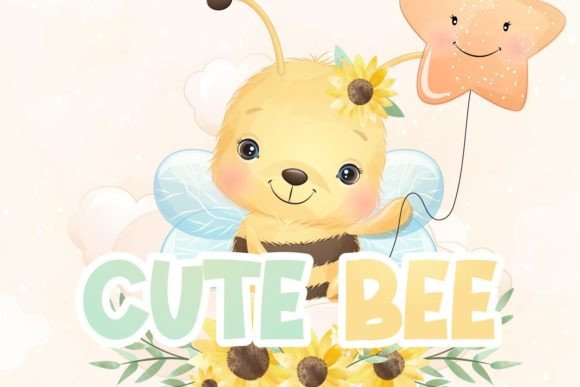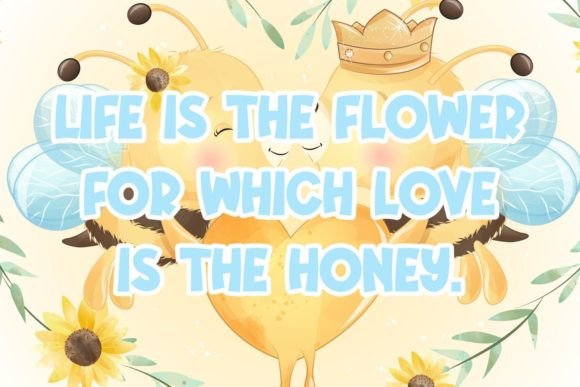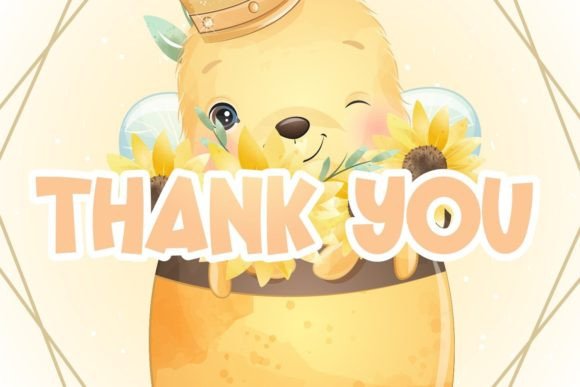
Introduction to Retro Bee Font
Do you remember that moment when you stumbled upon the perfect font for your creative project, and everything just fell into place? It’s a feeling that’s hard to describe, but it’s like the entire design just came alive. For designers, finding the right font can be a game-changer. And if you’re looking for a font that’s not only adorable but also versatile, you’re in luck because we’re about to introduce you to the Retro Bee Font.
This charming display font is a treasure trove of design possibilities, whether you’re working on a craft, digital design, presentation, or even a greeting card. With its friendly and retro vibe, the Retro Bee Font has the potential to become your go-to design resource for any occasion. And the best part? It’s available for a free download, so you can experiment with it without breaking the bank.
What sets the Retro Bee Font apart is its high-quality design, which allows for seamless use on any background – even transparent ones. Its unique style and versatility make it an excellent addition to any designer’s toolkit, and we can’t wait to share its awesomeness with you!
Key Features of Retro Bee Font
- High-quality, vector-based font design for a seamless and scalable experience.
- Unique, hand-drawn style with a nostalgic touch, reminiscent of classic illustrations and typography from the past.
- Perfect for designers seeking a distinctive and eye-catching design element for their creative project, such as a logo, poster, or packaging design.
Honest Review: Retro Bee Font
I recently stumbled upon the Retro Bee Font, and I’m excited to share my thoughts on this design resource. Overall, I found it to be a great addition to any creative project.
Here’s what works well:
- ✨ The Retro Bee Font is incredibly versatile, making it suitable for a wide range of designs, from posters to digital graphics.
- ✨ The high-quality design ensures that the font looks great on any background, including transparent backgrounds.
- ⚠️ The font is limited to a single style, which might not be suitable for projects that require multiple font styles.
- ⚠️ The font doesn’t include any ligatures, which might affect the overall appearance of certain words.
Overall, I’m impressed with the Retro Bee Font. While it may have some limitations, its high-quality design and versatility make it a great addition to any design toolbox. I’d definitely recommend it for any creative project.
Retro Bee Font
Designing with Retro Bee Font
The Retro Bee Font is a unique design resource that can add a touch of nostalgia and playfulness to your creative projects. With its transparent background, you can easily place it over any image or color scheme to create a visually appealing design.
Getting the Most Out of Retro Bee Font
To get the most out of the Retro Bee Font, use it in conjunction with other design elements to create a visually appealing design. You can also experiment with different font sizes and colors to add depth and interest to your design.
Common Use Cases for Retro Bee Font
The Retro Bee Font is perfect for use in a variety of creative projects, including invitations, posters, and social media graphics. Its unique design and transparent background make it easy to use in a wide range of applications.